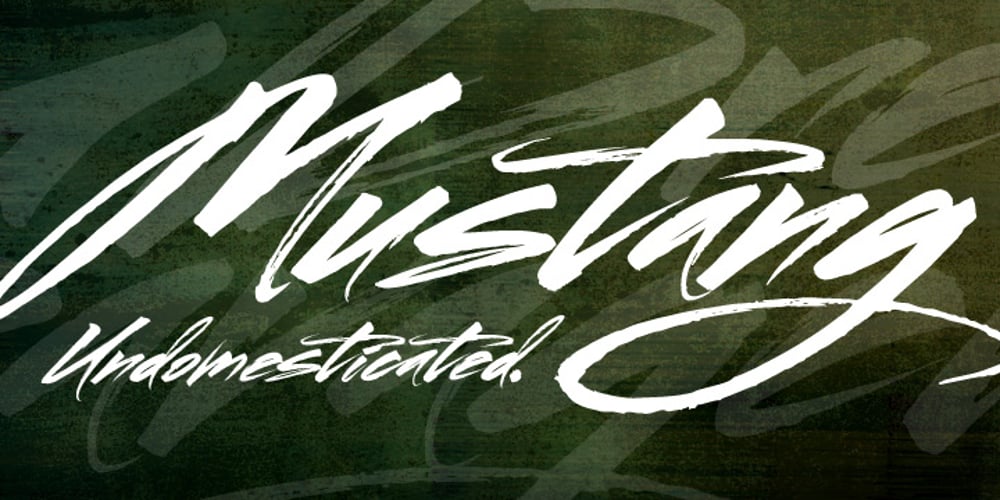
Mustang Font Family was designed by Robert Arnow and published by Robert Arnow. Mustang contains 1 styles and family package options. Mustang is a powerfully expressive brush font that combines an edgy urban aesthetic with a smooth feminine flow. Some have suggested that Mustang is romantic. Some say it has something to do with speed or freedom. While precisely what Mustang expresses is up to debate, there’s no doubt that it’s expressing it with intensity. The style was born in my high school years, when I would wreck my notebooks with multiple layers of graffiti tags which would start in the margins and then creep in to cover the entire page. I developed a sensibility towards a very fast, expressive use of my hand, which later easily and naturally translated into brush. I used this style typographically on several projects throughout the years, and even turned it into a signature illustration style. Mustang is the second font, after Streetbrush, to use this brushwork as its inspiration. Mustang will be especially evocative at large sizes, where the details and sharpness of the shapes really come to life. It also holds together well for use as body copy, but may lose some of its aesthetic integrity at really small sizes.